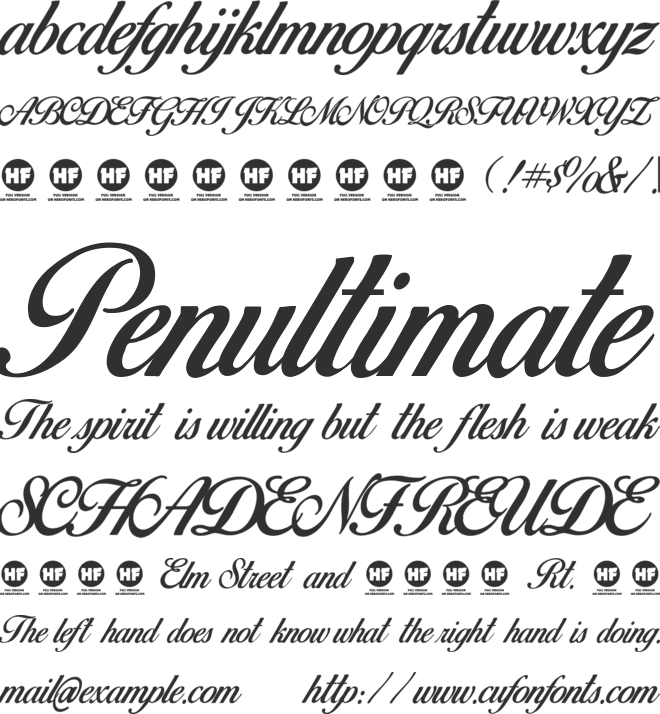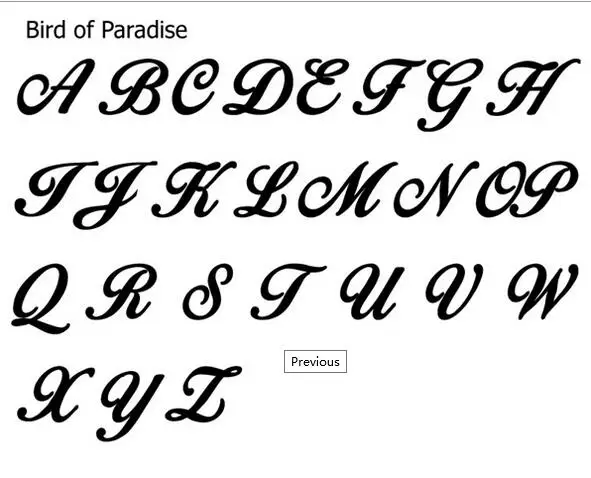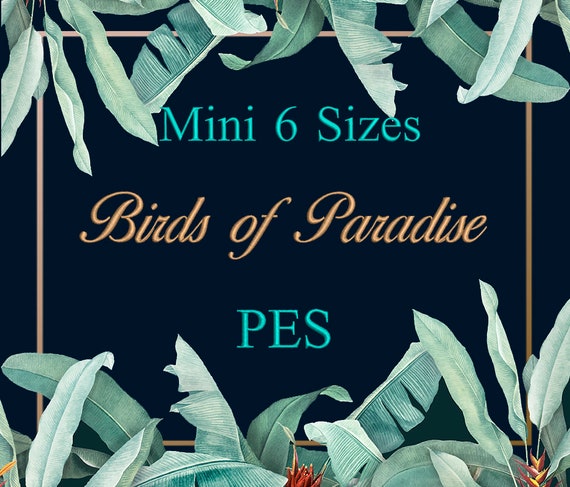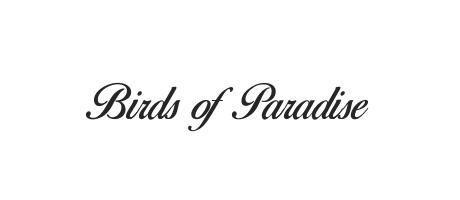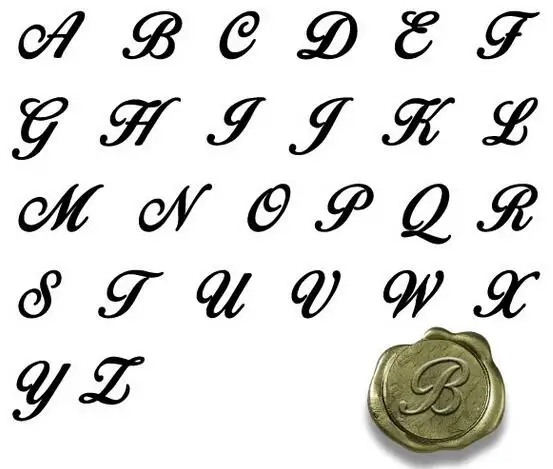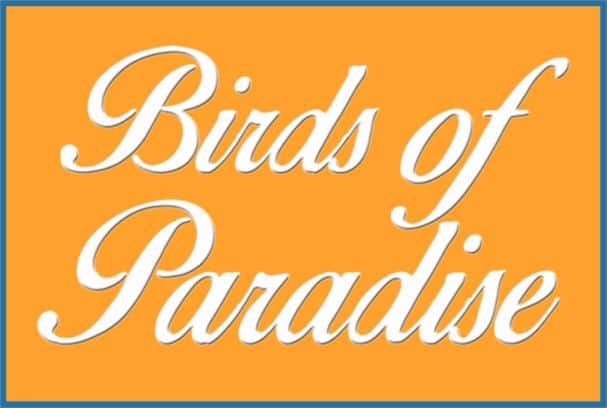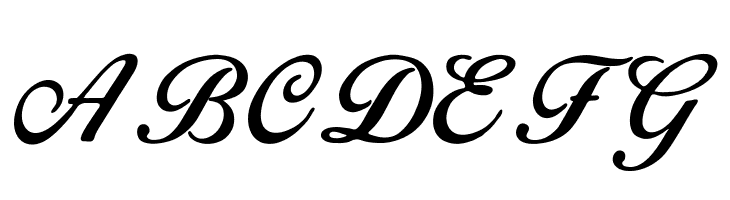
Birds Of Paradise Font
Birds of paradise font. Art Deco Fonts 24;. Birds of paradise are a calligraphy font that is designed by HeroFonts and is available for free for personal use and commercial use It provides all uppercase and lowercase letters and many special characters too. Download birds of paradise font with regular style Download free fonts for Mac, Windows and Linux All fonts are in TrueType format Fontsupcom is a great collection of free fonts.
Birds of Paradise © is a revival of a font made by Al Elliot in 1975NOTE This font is free for PERSONAL USE ONLY!. Birds of Paradise is a high quality Calligraphy font that is designed by Herofonts and is available for free download and personal use The free version provides all uppercase and lowercase letters and a few special characters too. 6 sizes Mini Font,Birds Of Paradise Font,PES,Calligraphy Fonts,Script Fonts,Machine Embroidery,Embroidery Font,Calligraphy Font,Script Font,Fonts Bundle Instant Dowloand!!!.
Birds of Paradise © is a revival of a font made by Al Elliot in 1975 You can test the font before buying it Truly yours, Scripthouse. New Free Fonts 3D Fonts 294;. Birds of Paradise is the perfect font for all your fun designs Birds of Paradise was designed by Guilhem GRECO The author works at company Script House The font family is Birds of Paradise And subfamily is Regular About the font Birds of Paradise is free for personal use only Please, talk with the author for commercial use or for any support.
Birds of Paradise © is a revival of a font made by Al Elliot in 1975 NOTE This font is free for. Birds of Paradise font is a script, calligraphy font designed by Herofonts Birds of Paradise font is available for free download for noncommercial, personal projects. PES Format 6 Sizes 050 inch 1 inch 15 inches 2 inches 25 Inches 3 Inches *** Due to the digital content of the design.
Birds of Paradise is a font by Script House , designed by Guilhem GRECO in 14. Birds of Paradise ttf (400) Font What Font Is Download Birds of Paradise ttf (400) font Birds of Paradise ttf (400) by Scripthouse. Click to preview Birds of Paradise Personal use Only 400 (TTF).